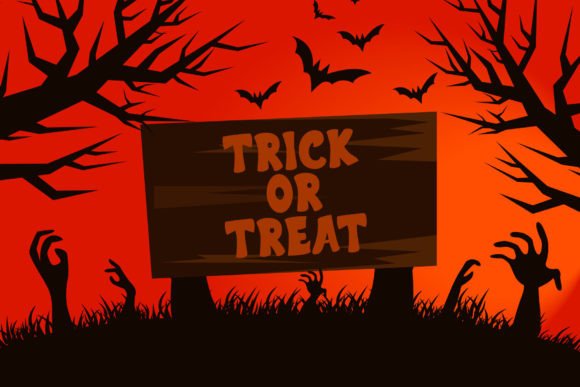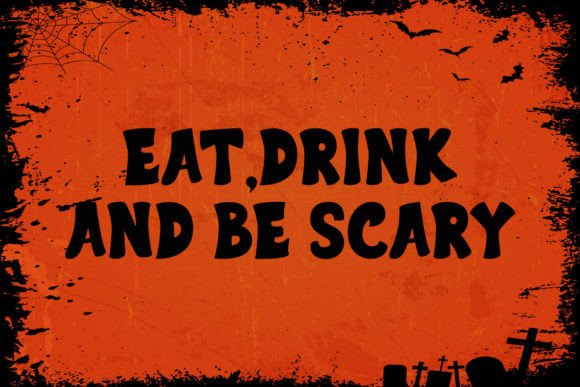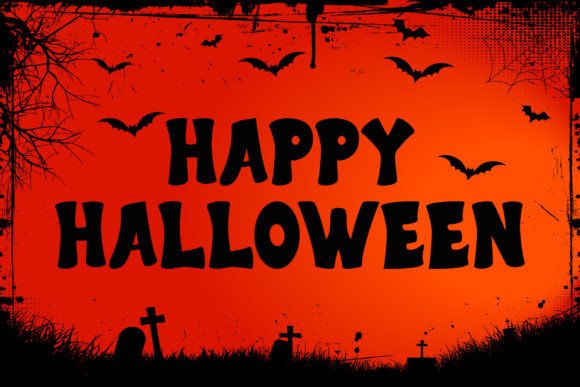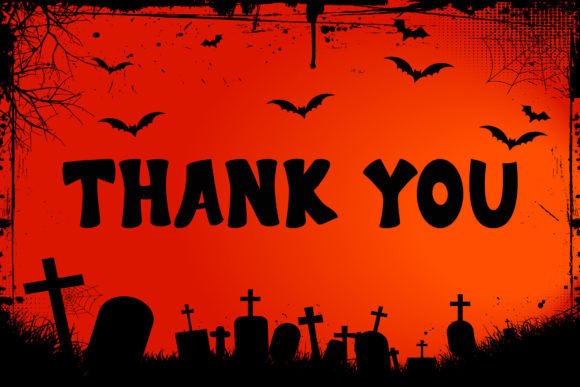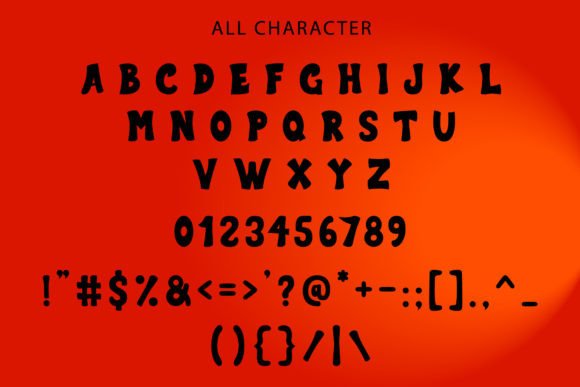
Introduction to Night Treat Font
Night Treat is a versatile, stylish, groovy, and playful retro display font, perfect for a wide spectrum of applications such as greeting cards, headlines, and more.
Add it to any of your creative projects, and it will give them a romantic and exquisite fee .
Key Features of Night Treat Font